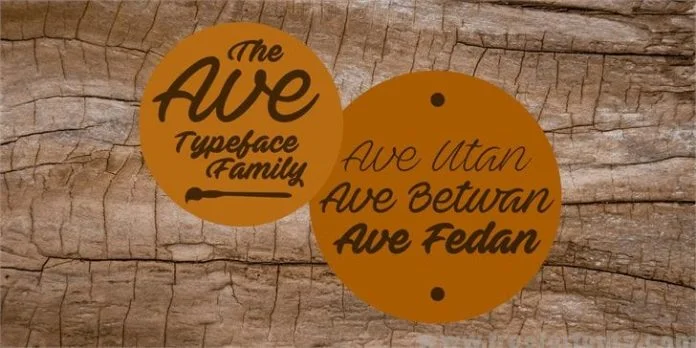
Ave Fedan PERSONAL USE ONLY font
Ave Fedan PERSONAL USE ONLY Font is perfect for personal projects, hobby crafts, scrapbooking, DIY wedding invitations, personal blogs, social media posts, greeting cards for family, handmade gifts, school presentations, creative writing projects, personal portfolios, and artistic experimentation.
What makes Ave Fedan PERSONAL USE ONLY Font exciting is its unique artistic expression that allows creative individuals to explore typography without commercial constraints. This distinctive typeface offers creative freedom for personal expression while maintaining professional-quality design standards. The font's special licensing makes it accessible for hobbyists, students, and creative enthusiasts who want to experiment with beautiful typography in their personal projects. Its carefully crafted letterforms provide visual interest and personality that elevates personal creative work while respecting intellectual property rights through its clear usage guidelines.
The Ave Fedan PERSONAL USE ONLY Font family includes regular and alternate character styles, featuring decorative elements, stylistic variations, and artistic flourishes. The character set incorporates creative glyphs and special symbols that enhance personal projects while maintaining the font's distinctive personality and artistic integrity.